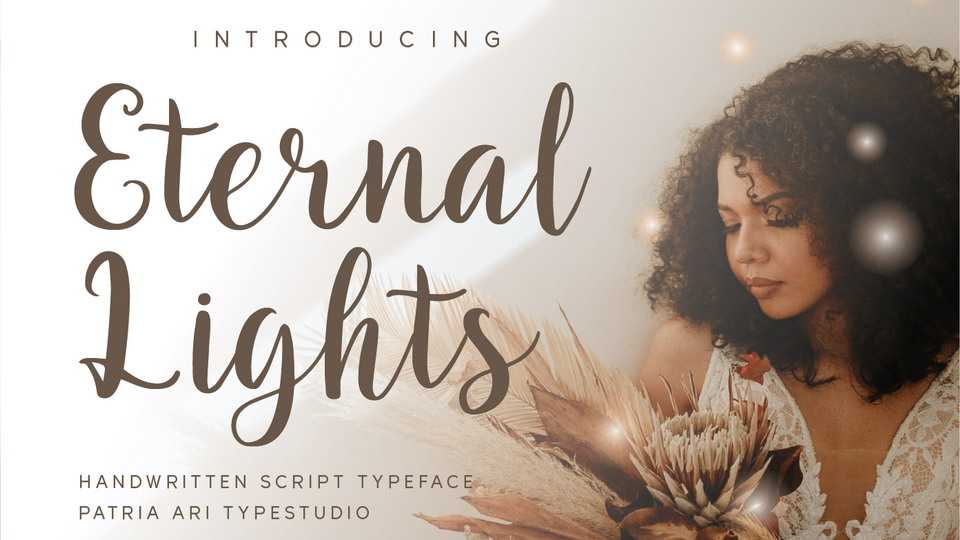
Download Eternal Lights font, a lovely script typeface with cute alternative glyphs. Eternal Lights is perfect for branding projects, logo, wedding invitation, social media posts and any projects that need handwriting taste.